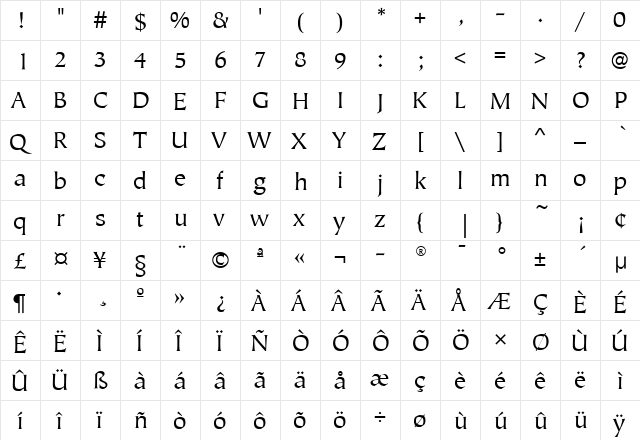
TiepoloITC Book Font Preview
TiepoloITC Book
TiepoloITC Book Font Details
Design Context for TiepoloITC Typeface
TiepoloITC offers clean, dependable letterforms without strong stylistic allegiance, making it a practical choice for designers who need flexibility.
Pro Tip: Pair TiepoloITC with a font of contrasting weight or personality to build a more expressive typographic hierarchy.